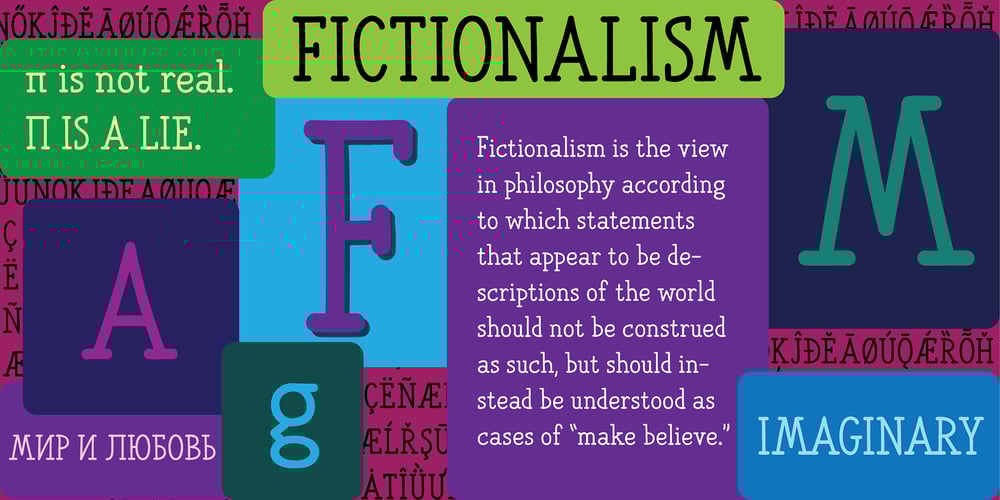
Fictionalism
Fictionalism font
Fictionalism Font Family was designed by Alec Julien and published by Haiku Monkey. Fictionalism contains 4 styles and family package options. Fictionalism is carefully handcrafted slab serif, slightly condensed to fit lots of beautiful text wherever you need. It’s handwritten, but neat as a pin; it’s tidy, but has a lively character that grabs attention in a friendly way. Use it for branding, posters, text, or a million and one other design applications.